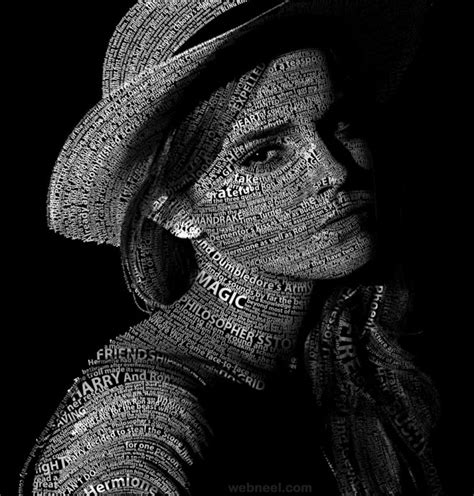
Daily Font: Your Source For Typography Inspiration
Hey font fanatics! Are you guys tired of staring at the same old boring text day in and day out? Do you crave a splash of visual excitement to liven up your projects, your social media, or even just your personal notes? Well, you’ve come to the right place! Daily Font is your go-to destination for discovering incredible typography that will ignite your creativity and keep your design game strong. We’re talking about a curated selection of fonts that are not only beautiful but also functional, versatile, and ready to make your content pop. Think of us as your friendly neighborhood font curator, always on the lookout for the freshest and most inspiring typefaces out there. Whether you’re a seasoned graphic designer, a budding blogger, a student working on a presentation, or just someone who appreciates the finer details in visual communication, you’ll find something here to tickle your fancy.
We understand that choosing the right font can sometimes feel like a daunting task. With the sheer volume of options available, it’s easy to get lost in a sea of serifs, sans-serifs, scripts, and display fonts. That’s where Daily Font steps in. We do the heavy lifting for you, sifting through the endless digital landscape to bring you fonts that are not just aesthetically pleasing but also tell a story, convey a mood, and enhance the overall message of your design. Our mission is to make typography accessible, enjoyable, and an integral part of your creative process. We believe that every day should bring a new opportunity to explore and appreciate the art of lettering. So, whether you’re looking for something bold and impactful for a headline, elegant and sophisticated for body text, or playful and whimsical for a special occasion, Daily Font has got your back. Get ready to fall in love with type all over again!
Why Fonts Matter in Your Design World
Let’s be real, guys, fonts are so much more than just letters on a page. They’re the unsung heroes of visual communication, the silent storytellers that can completely change the way your message is received. Imagine reading a heartfelt love letter written in a harsh, blocky font – it just wouldn’t have the same impact, right? Or trying to digest a complex technical manual set in a flowy, delicate script font – talk about a headache! This is why understanding the power of daily font choices is absolutely crucial for anyone involved in design, marketing, or content creation. The right typeface can evoke emotions, establish a brand’s personality, improve readability, and even guide the reader’s eye through your content. It’s the difference between a design that’s easily digestible and engaging, and one that’s overlooked or, worse, confusing.
Think about your favorite brands. What do you notice about their logos and their marketing materials? Chances are, the typography plays a significant role in their overall aesthetic and brand recognition. A clean, modern sans-serif might convey innovation and efficiency, while a classic serif could speak to tradition and trustworthiness. A handwritten script might feel personal and artisanal, and a bold, distressed font could project an edgy, rebellious attitude. These are the subtle (and sometimes not-so-subtle) messages that fonts communicate. Daily Font aims to equip you with the knowledge and the inspiration to make these powerful choices with confidence. We want you to understand how a particular font can elevate your website’s user experience, make your social media graphics stand out in a crowded feed, or ensure that your printed materials leave a lasting impression. It’s about making intentional decisions that resonate with your audience and amplify your message. Don’t underestimate the influence of these design elements; they are the foundation upon which your visual narrative is built.
Exploring the Vast Universe of Typography
When we talk about daily font discoveries, we’re diving headfirst into an incredibly diverse and fascinating world. Typography isn’t just about picking a font that looks pretty; it’s about understanding its history, its characteristics, and its intended use. We’ve got the timeless classics, like the sturdy and readable Garamond or the elegant Times New Roman , which have stood the test of time for good reason. Then there are the modern marvels, such as the geometric clean lines of Montserrat or the friendly curves of Open Sans , designed for the digital age. And let’s not forget the expressive display fonts – the ones that are bursting with personality, perfect for grabbing attention in headlines, posters, and logos. Think of bold, retro-inspired scripts or futuristic, angular sans-serifs; these are the fonts that make a statement.
At Daily Font , we love to explore all these corners of the typographic universe. We’ll introduce you to serif fonts, characterized by those little decorative strokes (the serifs) at the ends of the letters, which often lend a sense of tradition, formality, and readability for long passages of text. Then there are sans-serif fonts, which, as the name suggests, lack these serifs, offering a cleaner, more minimalist, and often more modern feel, perfect for digital interfaces and headlines. We’ll also delve into script fonts, which mimic handwriting, ranging from elegant calligraphy to casual handwriting styles, best used sparingly for a touch of personal flair. And for those truly unique projects, we’ll showcase decorative or display fonts, designed for impact and artistic expression, often best suited for single words or short phrases. Understanding these categories is your first step to making informed daily font decisions that will serve your projects beautifully.
Serif Fonts: Timeless Elegance and Readability
Ah, serif fonts , the old souls of the typography world! Guys, these are the fonts that carry a certain gravitas, a sense of history and tradition that’s hard to beat. Think of those little feet, or ‘serifs,’ that grace the ends of the letter strokes. They’re not just decorative; they actually help guide the eye along the line of text, making them incredibly readable, especially for longer pieces of content like books, articles, and reports. When you’re aiming for a feel that’s sophisticated, classic, or authoritative, you really can’t go wrong with a well-chosen serif. They exude a certain trustworthiness and academic quality that many brands and publications rely on. We’re talking about fonts like Garamond , with its delicate curves and understated elegance, or Georgia , which feels robust and friendly on screen. Then there’s the ubiquitous Times New Roman , a staple for formal documents for decades. But don’t let their classic status fool you; modern interpretations of serif fonts can also feel fresh and contemporary. They bring a sense of refinement and polish that instantly elevates your design. Choosing a daily font from the serif family means you’re opting for a typeface that has a proven track record of clarity and aesthetic appeal, ensuring your message is not only seen but also comfortably absorbed by your audience. They are perfect for the body text of your website, the pages of your novel, or any content where sustained reading is expected.
Sans-Serif Fonts: Modern Simplicity and Versatility
On the flip side, we have the sans-serif fonts , the modern champions of the design world! If serifs are the distinguished elders, sans-serifs are the sleek, minimalist trendsetters. Their defining characteristic? You guessed it – no serifs! This clean, uncluttered appearance makes them incredibly versatile and a fantastic choice for a wide range of applications, especially in our increasingly digital landscape. Think about the websites you visit daily, the apps you use, the social media platforms you scroll through – chances are, you’re interacting with sans-serif fonts all the time . Their legibility on screens, from tiny mobile devices to large monitors, is a massive advantage. They convey a sense of modernity, efficiency, and approachability. Popular examples include Open Sans , known for its neutral yet friendly feel, Lato , with its semi-rounded details that give it a warm character, and Roboto , Google’s default font for Android, optimized for readability across platforms. Daily Font often highlights sans-serifs because of their sheer adaptability. Whether you need a bold, impactful font for a headline that screams for attention or a clean, simple font for body text that’s easy on the eyes, a sans-serif can do it all. They are the workhorses of modern design, providing a solid foundation for clear and effective communication.
Script Fonts: Adding Personal Flair and Elegance
Now, let’s talk about script fonts , the ones that bring a touch of personality and flair! These fonts are designed to mimic handwriting, and guys, they can add a whole lot of character to your designs. We’re talking about everything from elegant, flowing calligraphy that feels like it was penned by a master artist, to casual, loopy handwriting that feels personal and friendly. Script fonts are fantastic for adding a unique touch to invitations, greeting cards, wedding stationery, or any project where you want to convey a sense of warmth, intimacy, or celebration. They can make a design feel handcrafted and special. However, the key with script fonts is moderation . Because they can be highly stylized, they’re often not the best choice for large blocks of text where readability is paramount. Instead, think of them as the perfect accent – for a headline, a special quote, or a signature element. Daily Font loves showcasing the sheer diversity within script fonts, from the formal and ornate to the relaxed and whimsical. Choosing the right script font can truly make your design sing and add that personal, human touch that often gets lost in digital communication. Just be mindful of legibility, and you’ll unlock their magical potential!
Display Fonts: Making a Bold Statement
Finally, let’s get loud with display fonts ! These are the showstoppers, the attention-grabbers, the fonts designed to make a serious impact. If a font has personality for days, a unique character, or a look that’s just plain cool, chances are it falls into the display category. Display fonts are intentionally designed to be used at larger sizes, typically for headlines, titles, posters, logos, and other short bursts of text where you want to create a strong visual statement. Think of chunky, retro fonts that scream 70s, futuristic, angular fonts that look like they’re from a sci-fi movie, or quirky, hand-drawn fonts that have a playful, artistic vibe. They are the exclamation points of the typography world! Daily Font loves digging up these gems because they allow designers to express a specific mood or theme powerfully. However, just like script fonts, they are generally not suitable for body text due to their intricate designs or unique letterforms that can hinder readability when small. When used strategically, display fonts can inject energy, creativity, and memorability into your projects, ensuring your message is noticed and remembered. They are the ultimate tool for making a bold, unforgettable first impression.